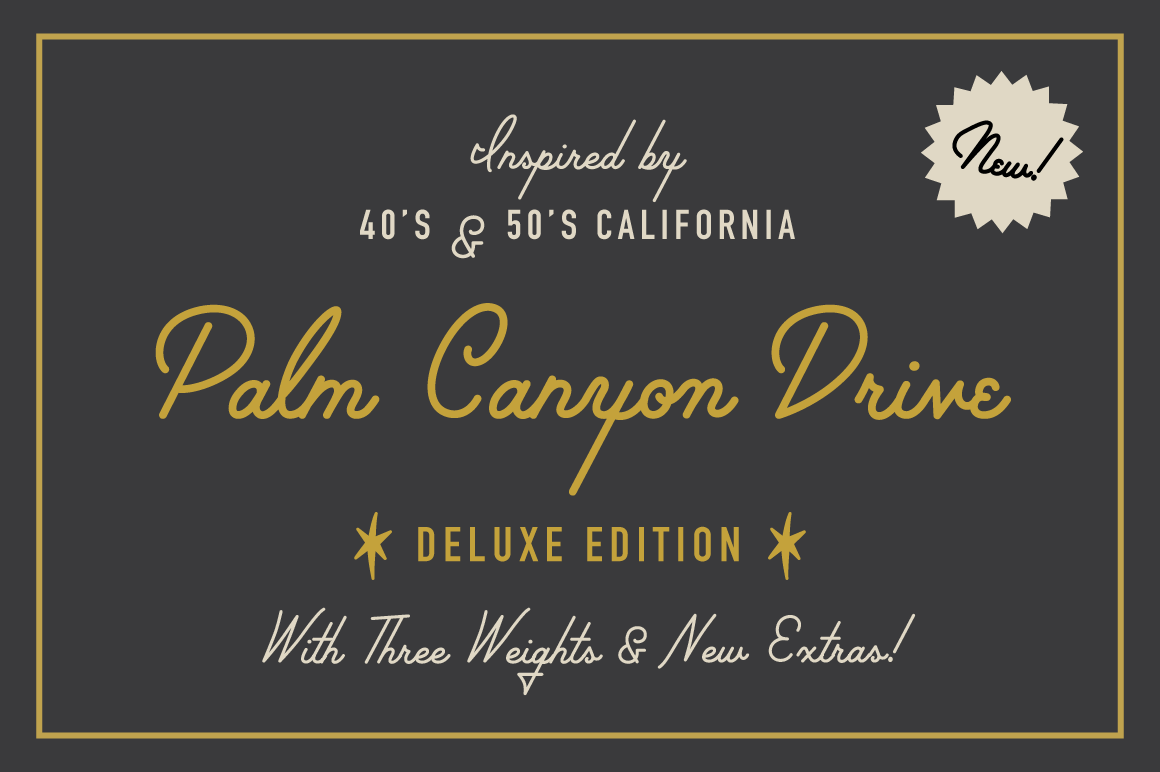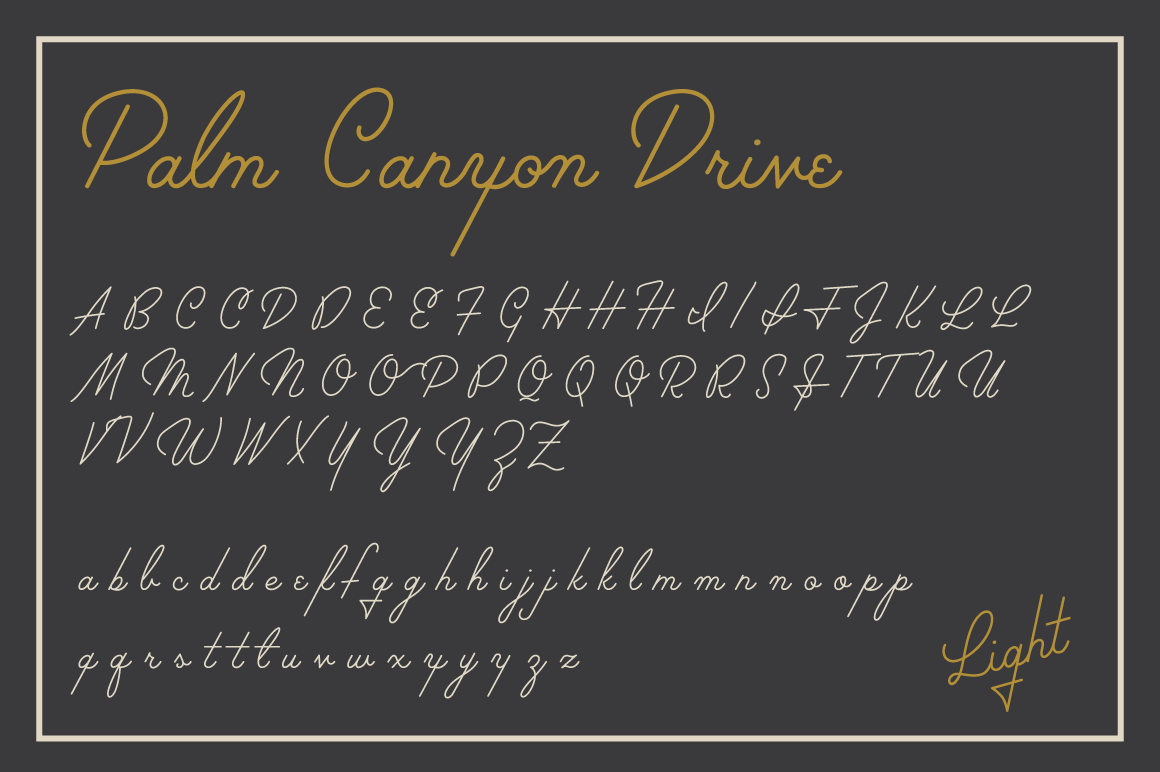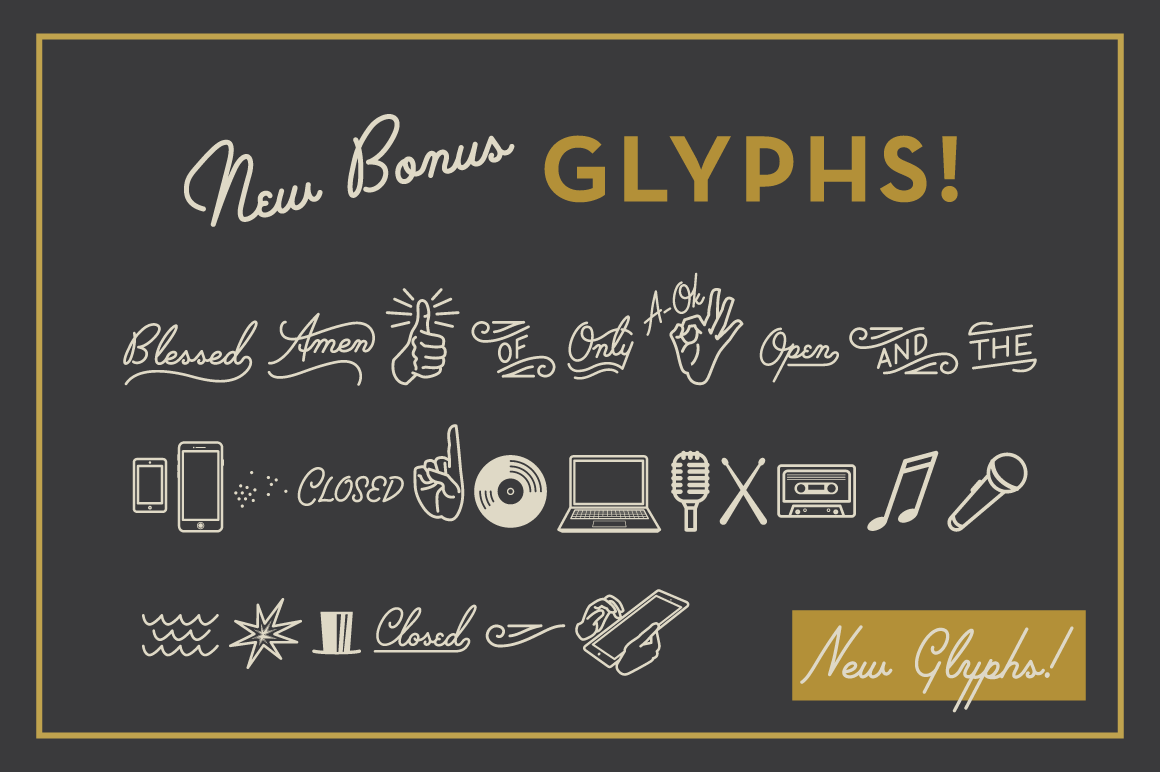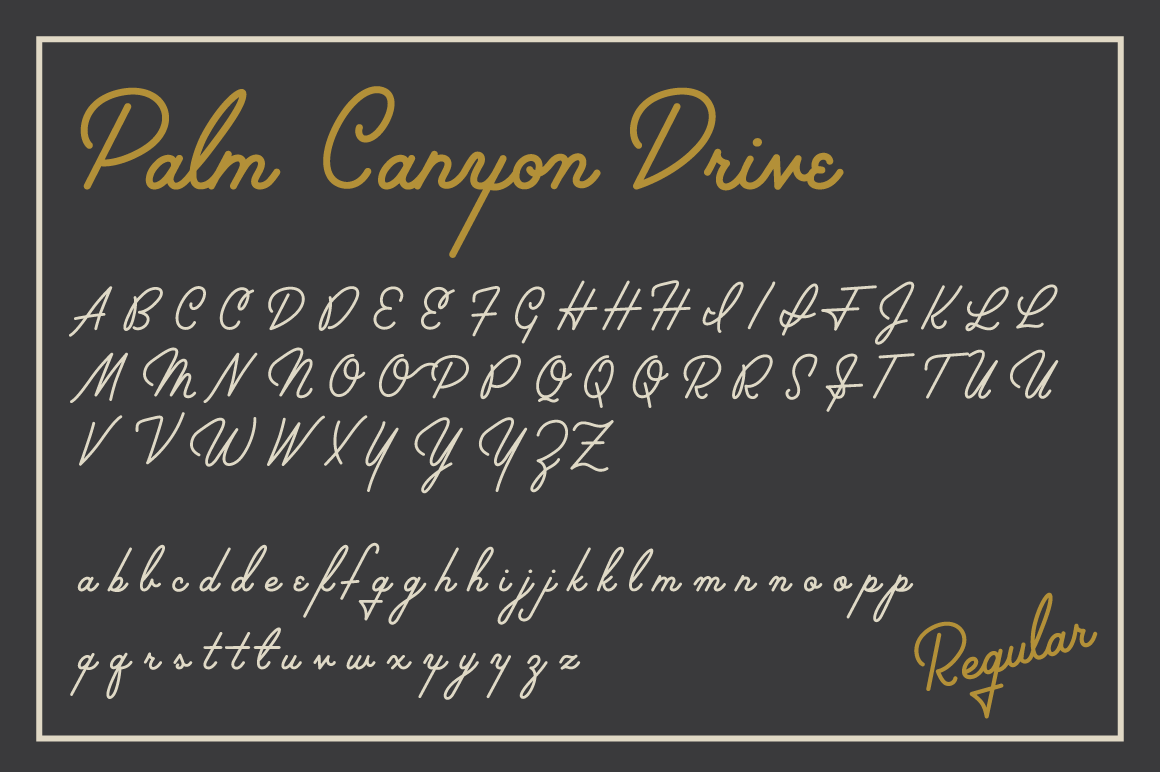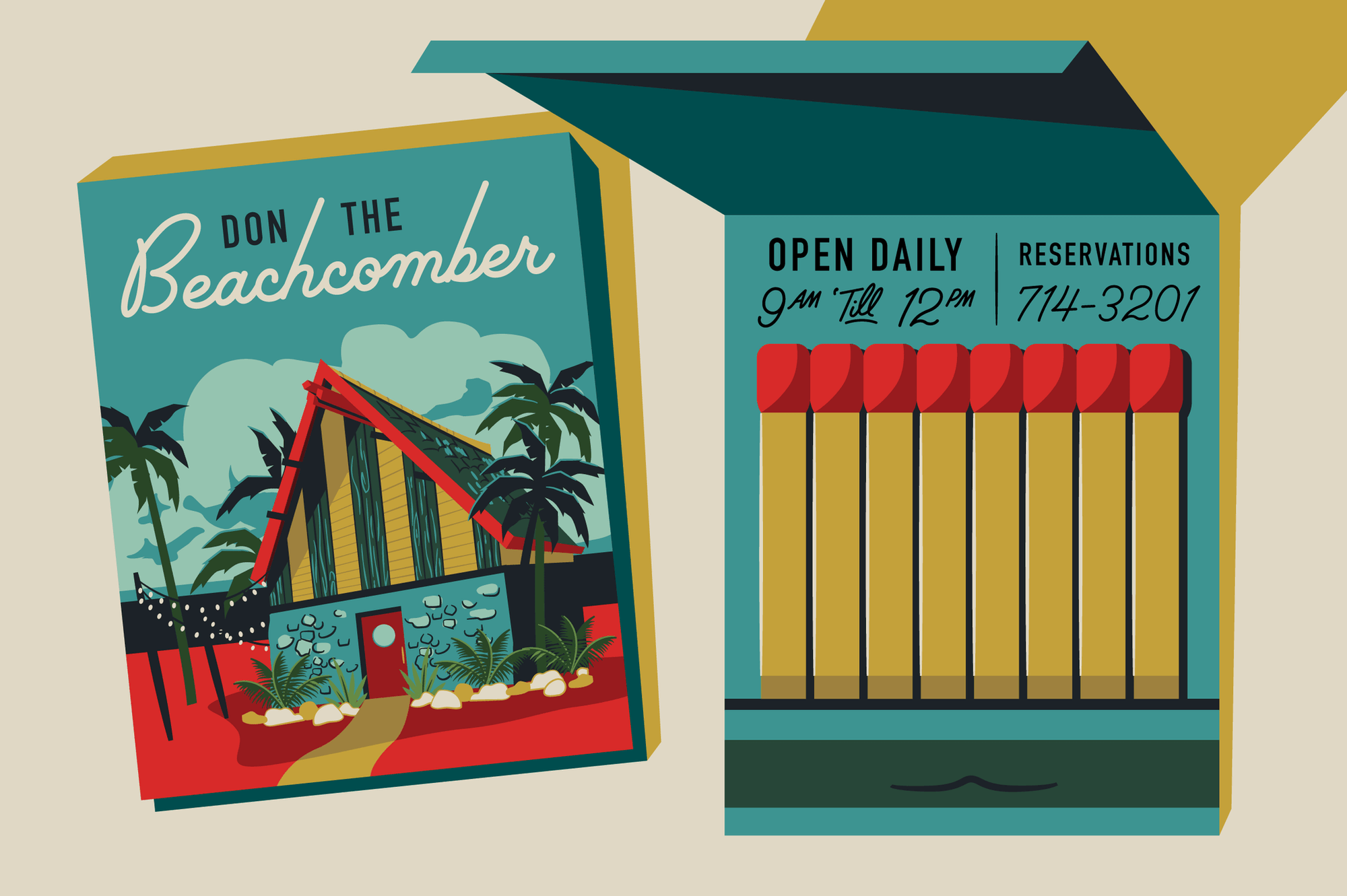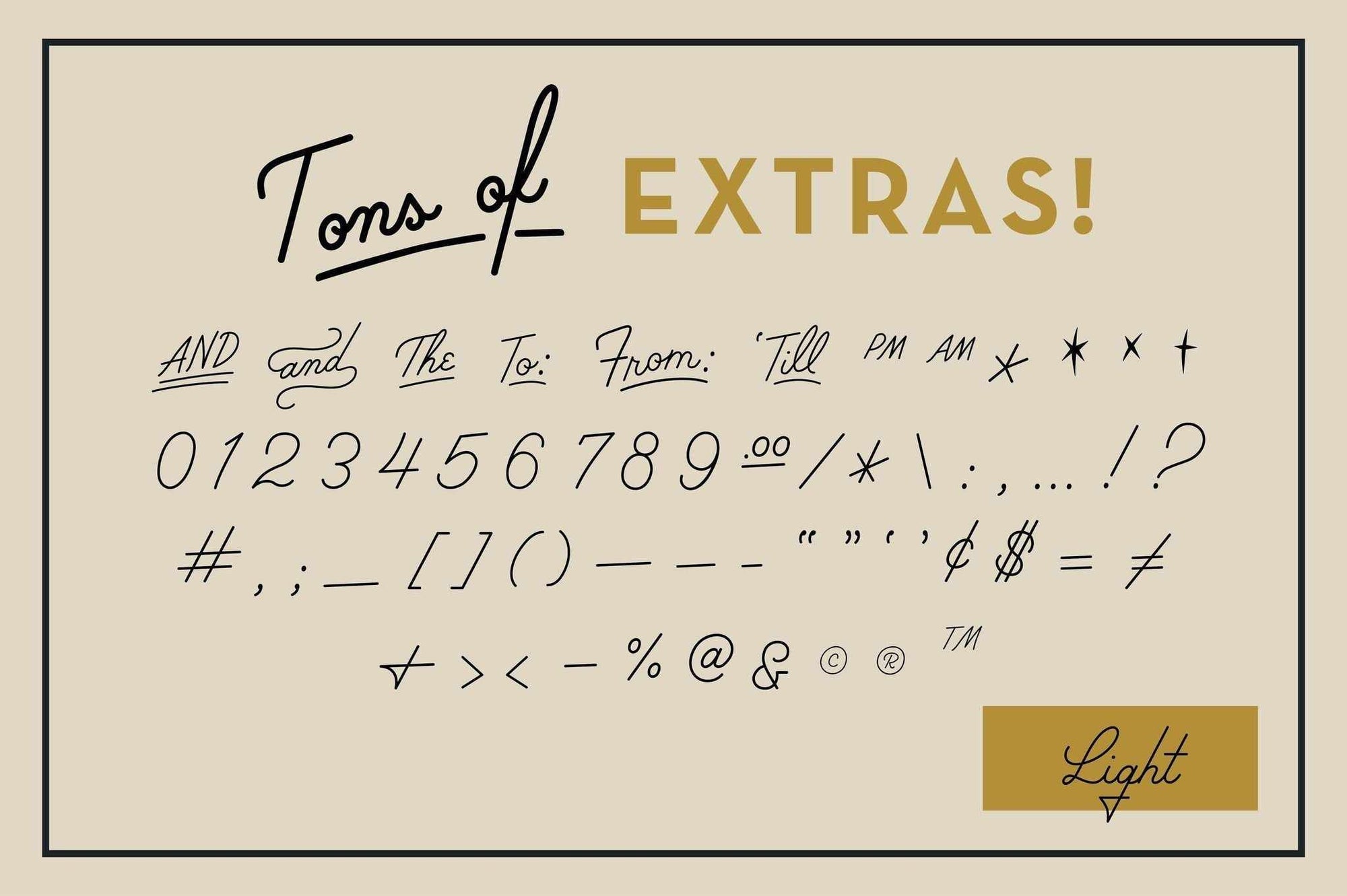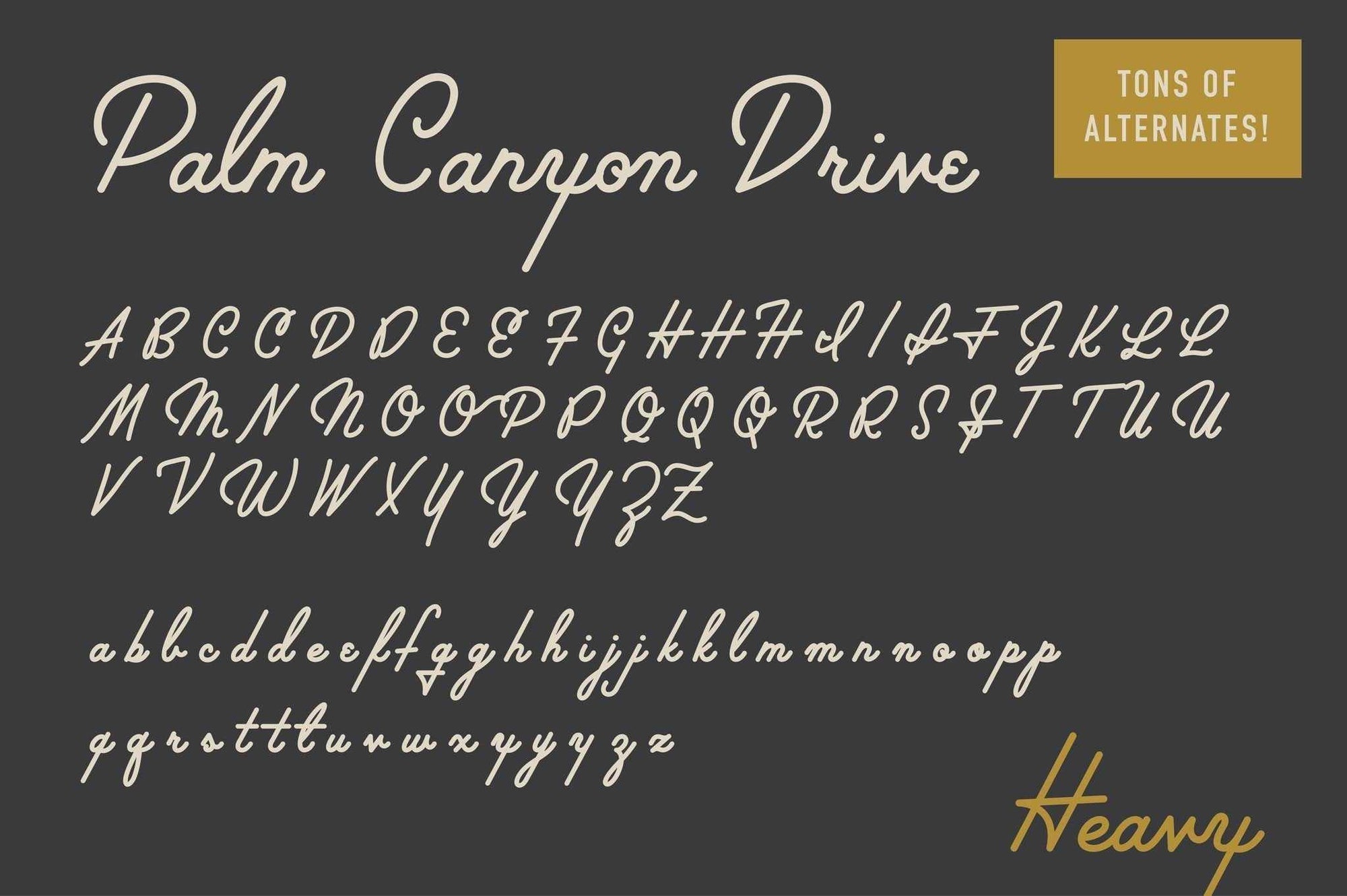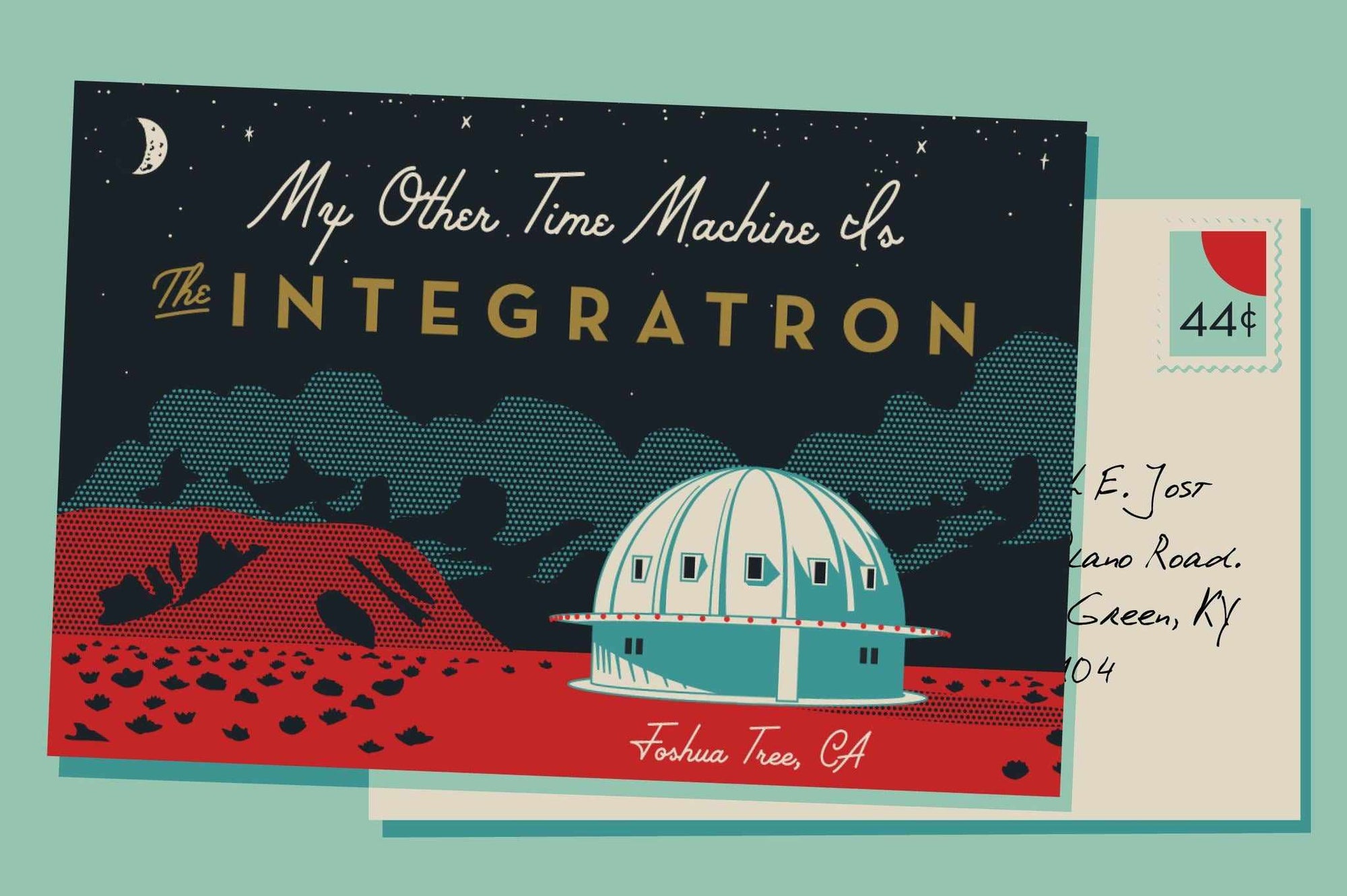
Palm Canyon Drive [Deluxe Edition]
• A monoline script inspired by mid-century Hollywood, California
• Included 3 weights (Light, Regular, & Heavy)
• Standard extra glyphs
• NEW complete font set of bonus glyphs (in 3 weights)
• Includes all standard alpha-numeric characters and popular catchwords
• Designed by Amy Hood of Hoodzpah Design Co.
A Monoline Script Inspired by 40's and 50's California
Mid-century California was a magical place. Post-war optimism fueled the popularity of everything from Hollywood to roadside diners.
Palm Canyon Drive is a monoline script inspired by retro matchbook covers, travel postcards, Tikki bars and Hollywood. With a classy yet unpretentious tone Palm Canyon Drive is as comfortable on a Tikki bar matchbook cover as it is on a Hollywood movie poster.
Palm Canyon Drive was designed by Amy Hood, co-founder of Hoodzpah Design Co. in conjunction with RetroSupply Co.
Amy Hood's work is a seamless blend of modern and retro design. Hoodzpah Design Co. has worked with all sorts of awesome clients including Google, Matchbox, The History Channel and more.